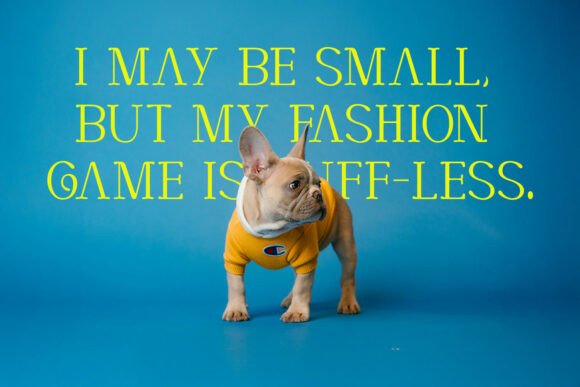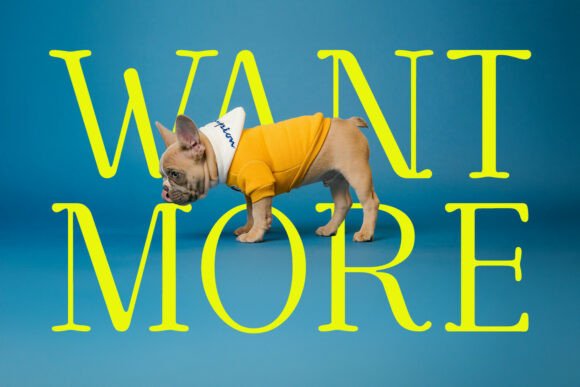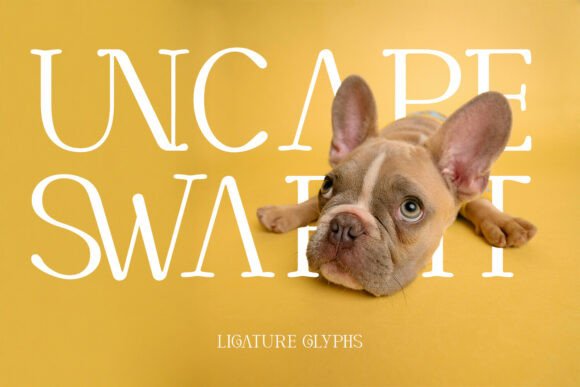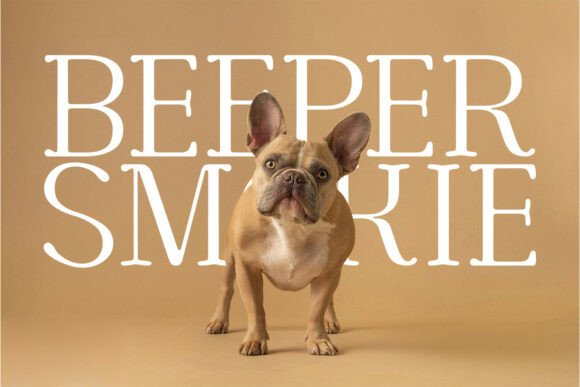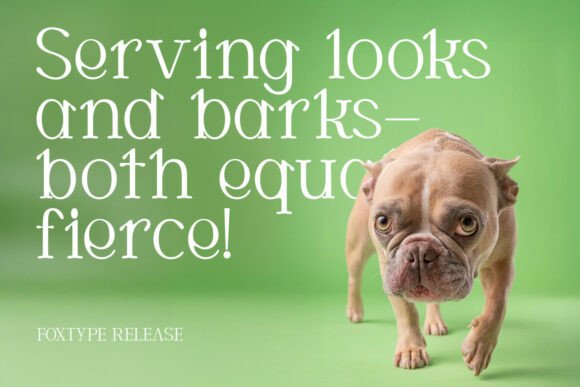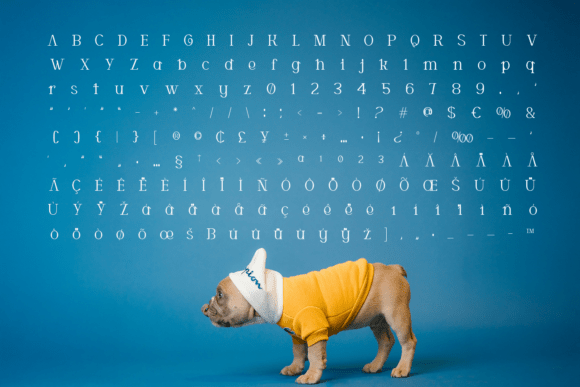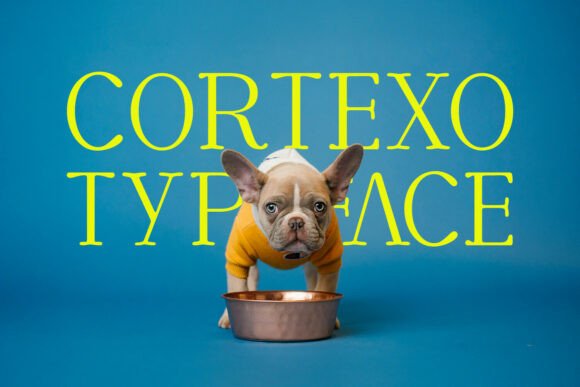
Unveiling the Elegance of Cortexo Font: A Perfect Blend of Sophistication and Distinction
In the realm of typography, few fonts manage to strike a balance between subtlety and striking presence. Cortexo Font, however, achieves this delicate equilibrium with grace and poise. This exquisitely crafted thin serif font is a masterpiece designed to bring a touch of contemporary opulence to your creative projects. Whether you’re working on state-of-the-art branding, magazine covers, posters, or editorial designs, Cortexo emerges as the ultimate selection for adding an impeccable finesse that speaks of magnificence.
The Essence of Cortexo Font
Cortexo’s sheer elegance is not just a visual treat but a versatile tool for designers and crafters. Its streamlined serifs and uncluttered lines unveil a refined aesthetic charm that is both captivating and highly interpretable. This makes Cortexo a gem for both print and digital mediums, offering seamless compatibility with TTF, OTF, WOFF, and WOFF2 formats. Such versatility ensures that Cortexo can be effortlessly integrated into a myriad of projects, from luxury branding and voguish logo designs to sleek fashion spreads and movie posters.
Features of Cortexo Font
• Graceful Thin Serif Design: Cortexo boasts a thin serif design that exudes elegance and sophistication. Its subtle serifs add a touch of refinement to any project.
• Exceptional Clarity and Style: The font’s design prioritizes clarity without compromising on style. This makes it perfect for projects where readability is key, such as in editorial designs, or where making a statement is crucial, like in luxury branding.
Applications of Cortexo Font
Cortexo’s versatility is one of its most compelling attributes. Here are some of the areas where Cortexo truly shines:
• Luxury Branding: For brands aiming to convey sophistication and elegance, Cortexo is an ideal choice. Its refined aesthetic can elevate a brand’s visual identity, making it stand out in a crowded market.
• Magazine Covers and Editorial Designs: The font’s ability to convey both subtlety and impact makes it perfect for magazine covers, editorial spreads, and any project requiring a touch of class and sophistication.
• Poster Design: Whether it’s for a movie, event, or promotional campaign, Cortexo can add a level of elegance and refinement that captures attention and leaves a lasting impression.
• Logo Design: For businesses looking to craft a logo that speaks of modernity and luxury, Cortexo offers a sleek and contemporary aesthetic that can be tailored to fit various brand identities.
Why Choose Cortexo Font?
In a world where typography plays a crucial role in visual communication, choosing the right font can make all the difference. Cortexo Font stands out for several reasons:
• Unique Blend of Elegance and Sophistication: Cortexo offers a unique combination of subtlety and striking presence, making it versatile for various applications.
• High Versatility: Its compatibility with multiple formats and its suitability for a wide range of projects make Cortexo a valuable asset for any designer or brand.
• Exceptional Quality: Crafted with attention to detail, Cortexo’s design ensures that it delivers high-quality visuals that can elevate any project.
In conclusion, Cortexo Font is a sophisticated and versatile typeface that can add a touch of elegance and refinement to any creative project. Its unique blend of subtlety and impact, combined with its multi-format compatibility and exceptional clarity, make it an ideal choice for designers and brands looking to make a statement. Whether you’re working on luxury branding, editorial designs, or any project requiring a touch of sophistication, Cortexo is sure to exceed your expectations.